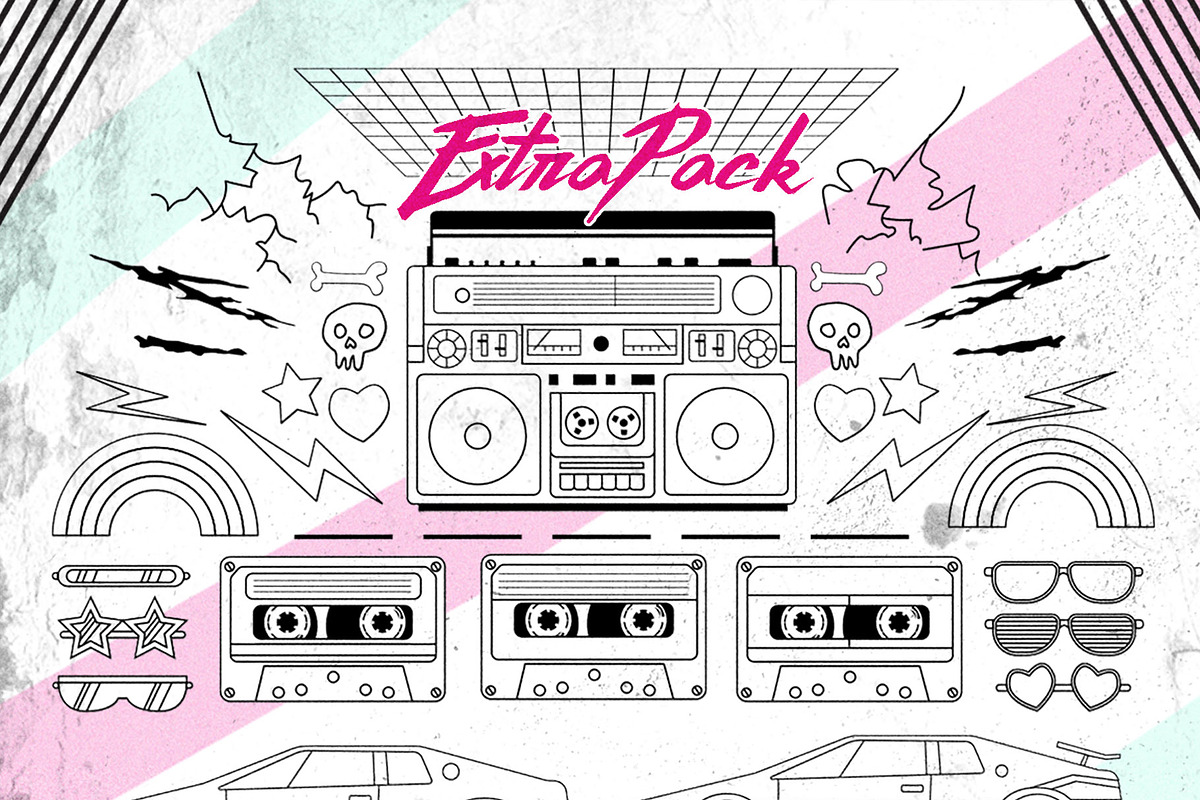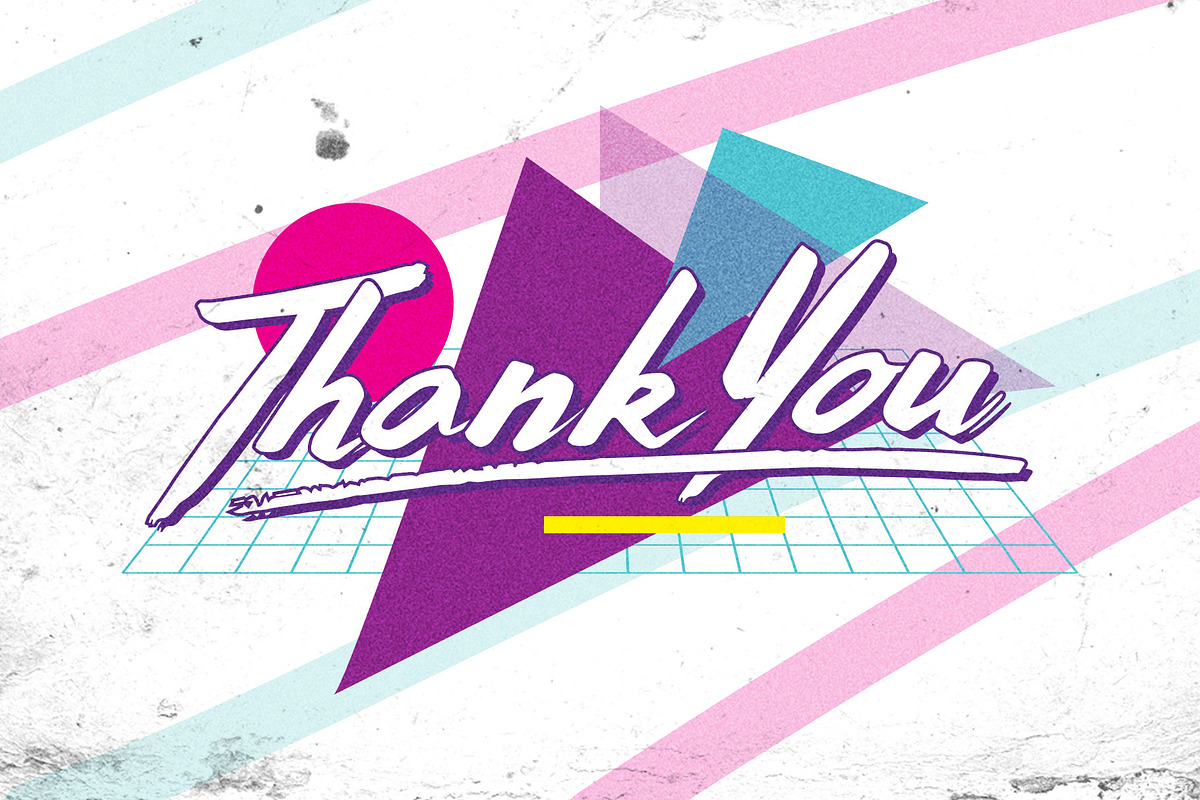
Introducing Thunderstorm typeface. A hand-made brush typeface inspired by 80s-90s music, retro, disco, grunge, and pop culture. uses for poster, logo, clothing, books, invitation, logo, etc.